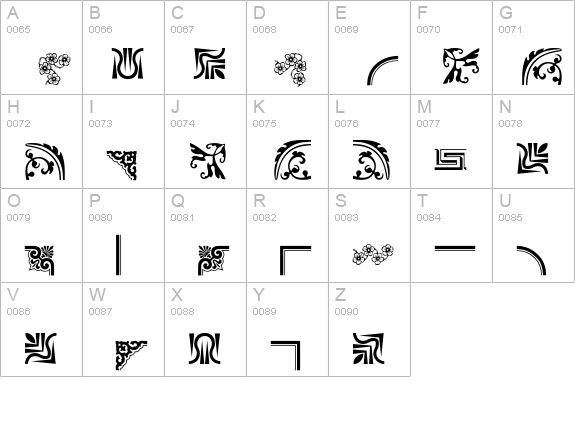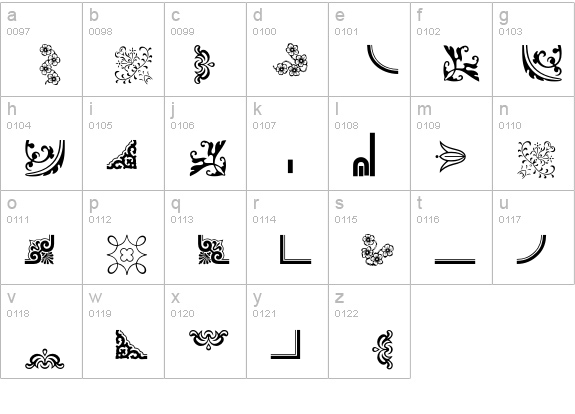
BordersOrnamentsP05 Font Details
BordersOrnamentsP05 font is a stunning display of intricate and elegant ornaments designed to add a touch of sophistication to any project. This font features a variety of captivating border designs that can be used to beautifully frame your text or create decorative elements. With its detailed and stylish motifs, BordersOrnamentsP05 font is perfect for enhancing invitations, greeting cards, posters, and more. The best part about BordersOrnamentsP05 font is that it is completely free to download at FontsMarket.com. This means you can easily access this exquisite font and elevate your designs without any cost. Whether you're a professional designer or a DIY enthusiast, BordersOrnamentsP05 font is a versatile and valuable addition to your font collection. Download it now and start creating visually stunning and sophisticated projects effortlessly.